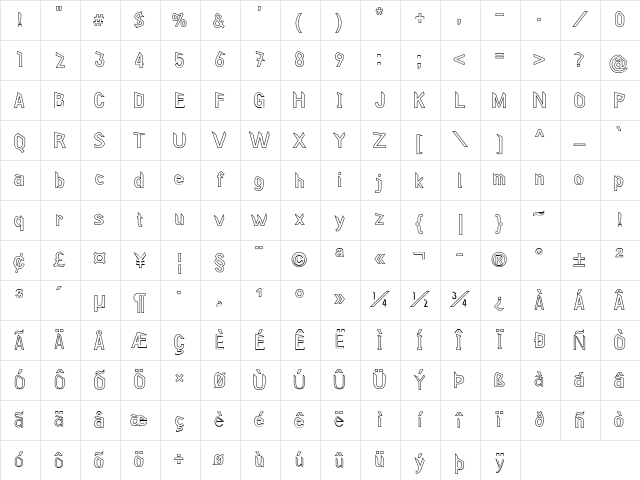
Krooked Outline Regular
Design Context for Krooked Outline
Krooked Outline is built around its visual character rather than neutral utility - its distinctive forms are designed to make an impression at display sizes.
Font Pairing: Pair with a clean neutral sans-serif for body copy to let Krooked Outline's character lead without overwhelming the composition.
Pro Tip: Use Krooked Outline exclusively at display sizes - it was designed to be seen, not read at length. Let a neutral companion handle body copy.